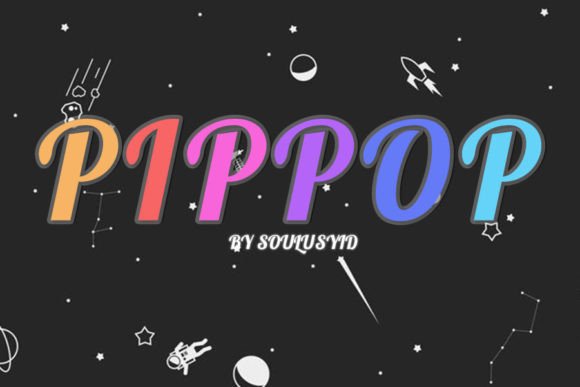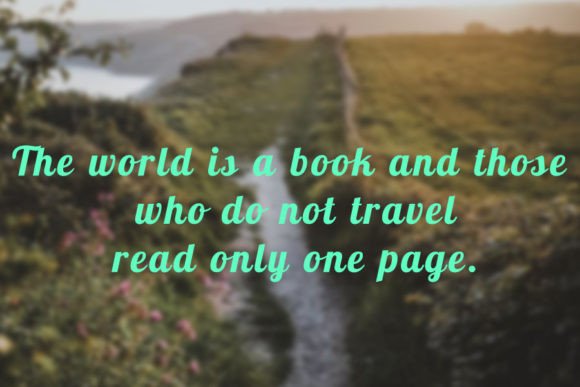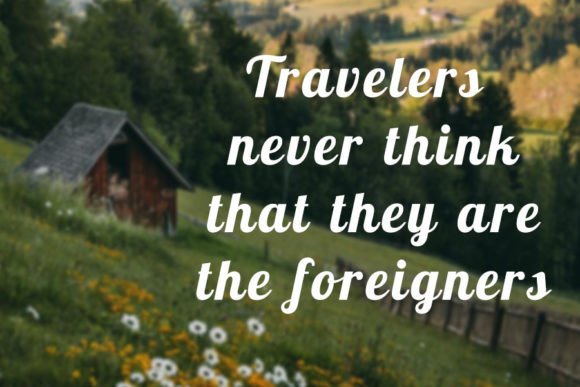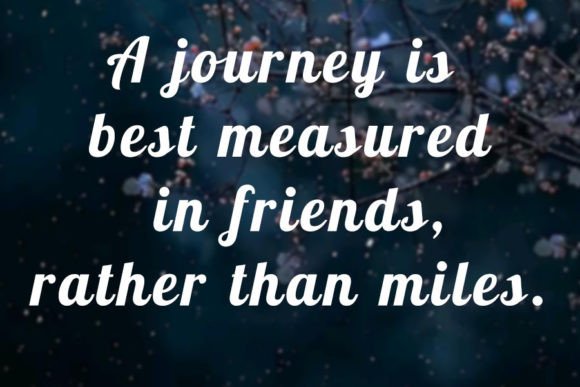
Pippop Font: A Playful Bold Font for Eye-Catching Titles!
About the Pippop Font
The Pippop Font offers a perfect balance of form and function for your design needs. Pippop is a bold, eye-catching font designed for use in headings, titles, and other short text blocks. It is characterized by unique and playful letterforms and exaggerated details. Use this font to add visual interest and impact to designs.
Pippop’s playful energy makes it ideal for children’s books, branding for playful companies (e.g., toy stores, ice cream shops), posters for events targeting a younger demographic, and even short, impactful headlines in magazine layouts. Avoid using Pippop for body text or lengthy paragraphs; its exaggerated details can become visually overwhelming and hinder readability. Similarly, it’s not suitable for UI elements requiring high legibility.
Pairing Pippop effectively requires a contrasting typeface to balance its boldness. A clean sans-serif like Open Sans or Lato provides excellent readability for supporting text, creating a strong visual hierarchy. For a more sophisticated feel, consider pairing it with a classic serif like Garamond or a subtly geometric sans-serif such as Montserrat.
Pippop’s overall personality is best described as bold and playful, yet friendly. This makes it unsuitable for projects requiring seriousness or elegance. Its whimsical nature makes it a powerful tool for designs that need a touch of fun and visual impact.